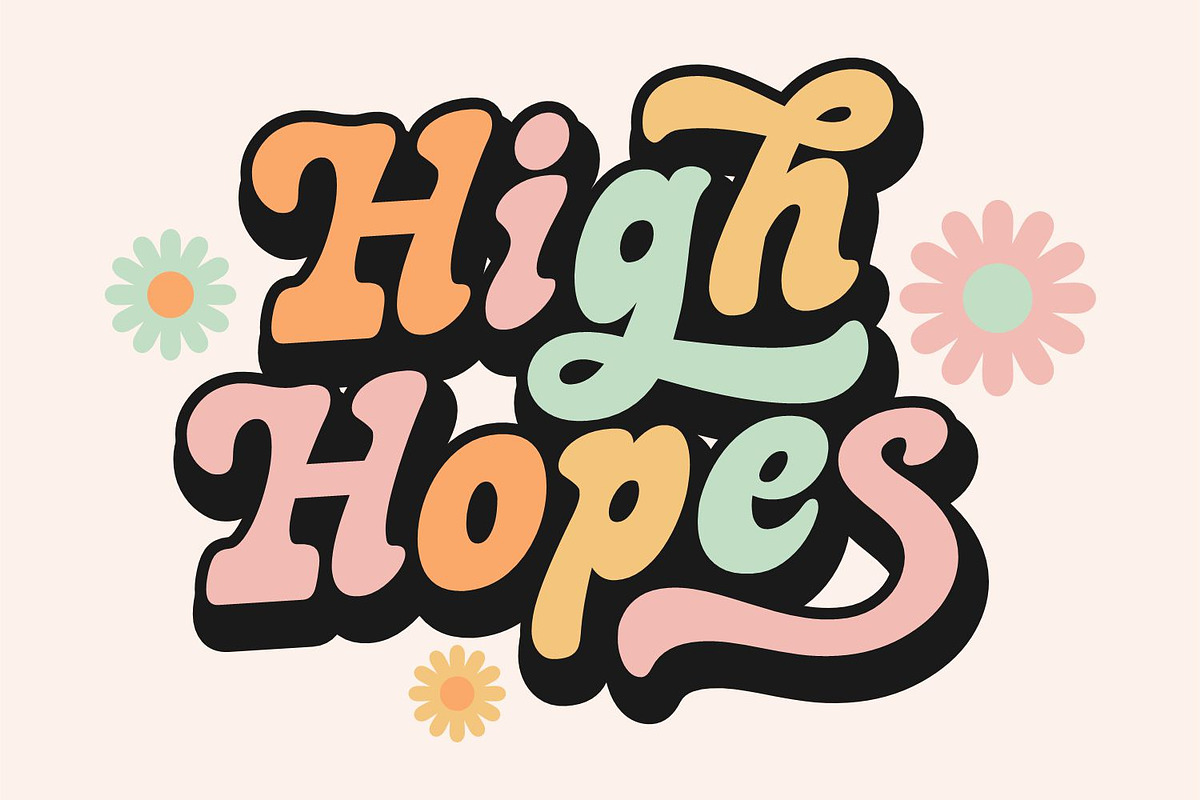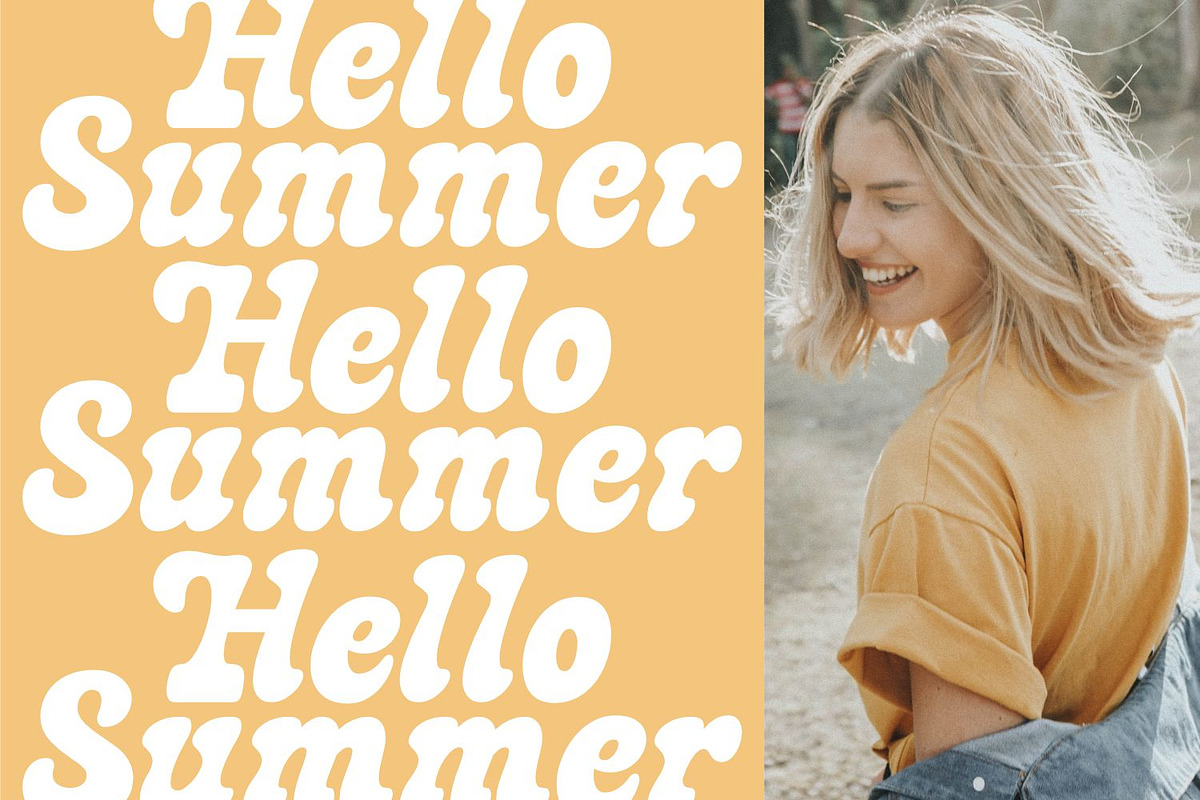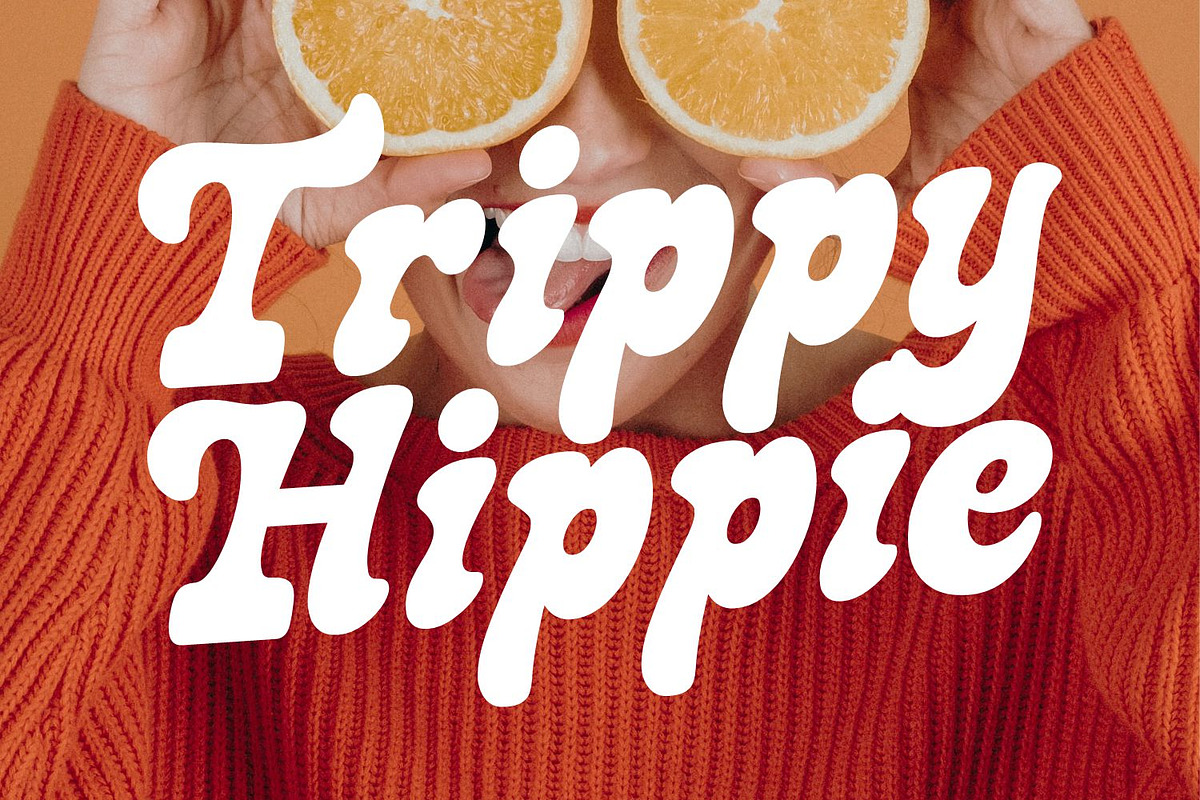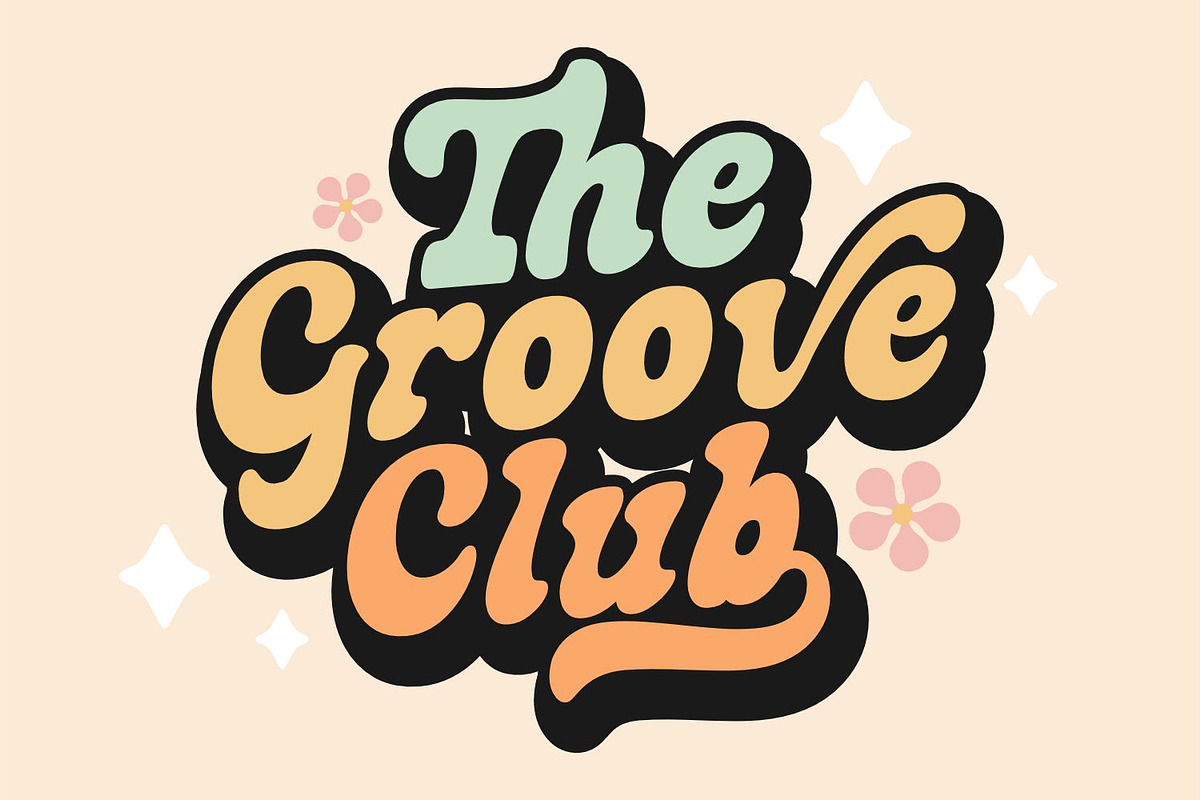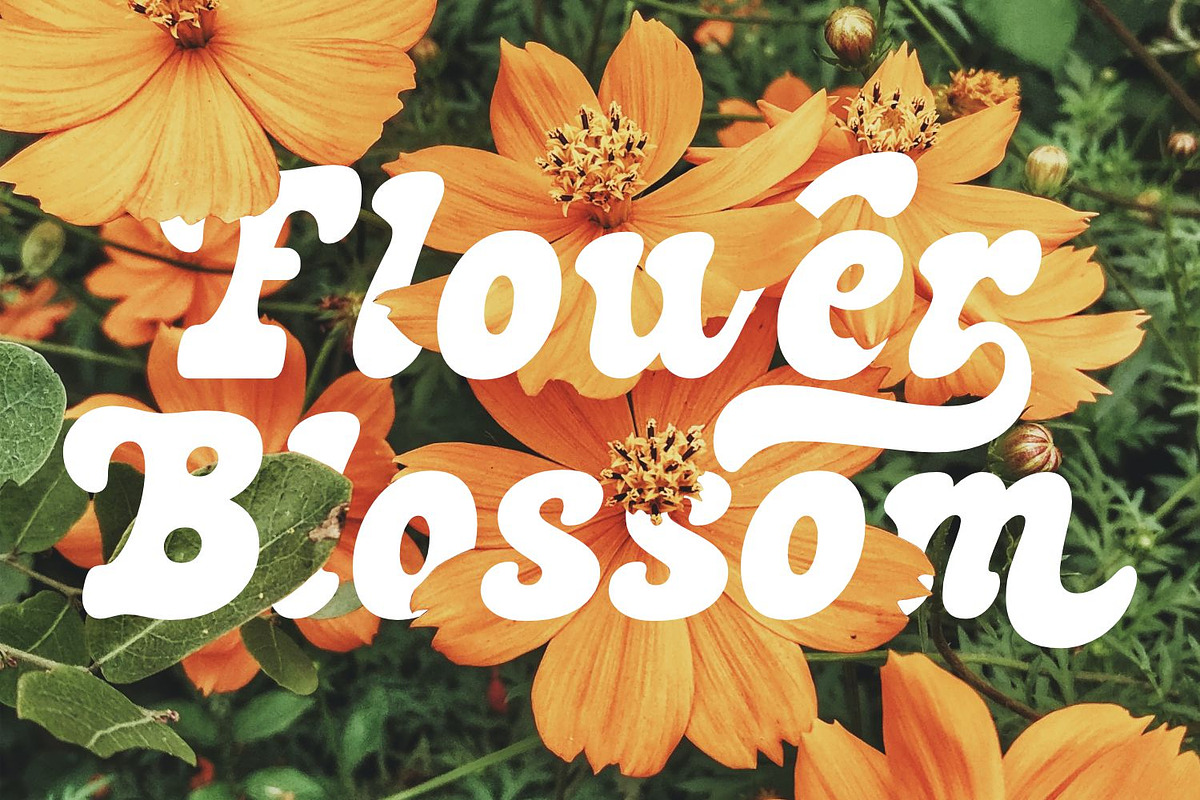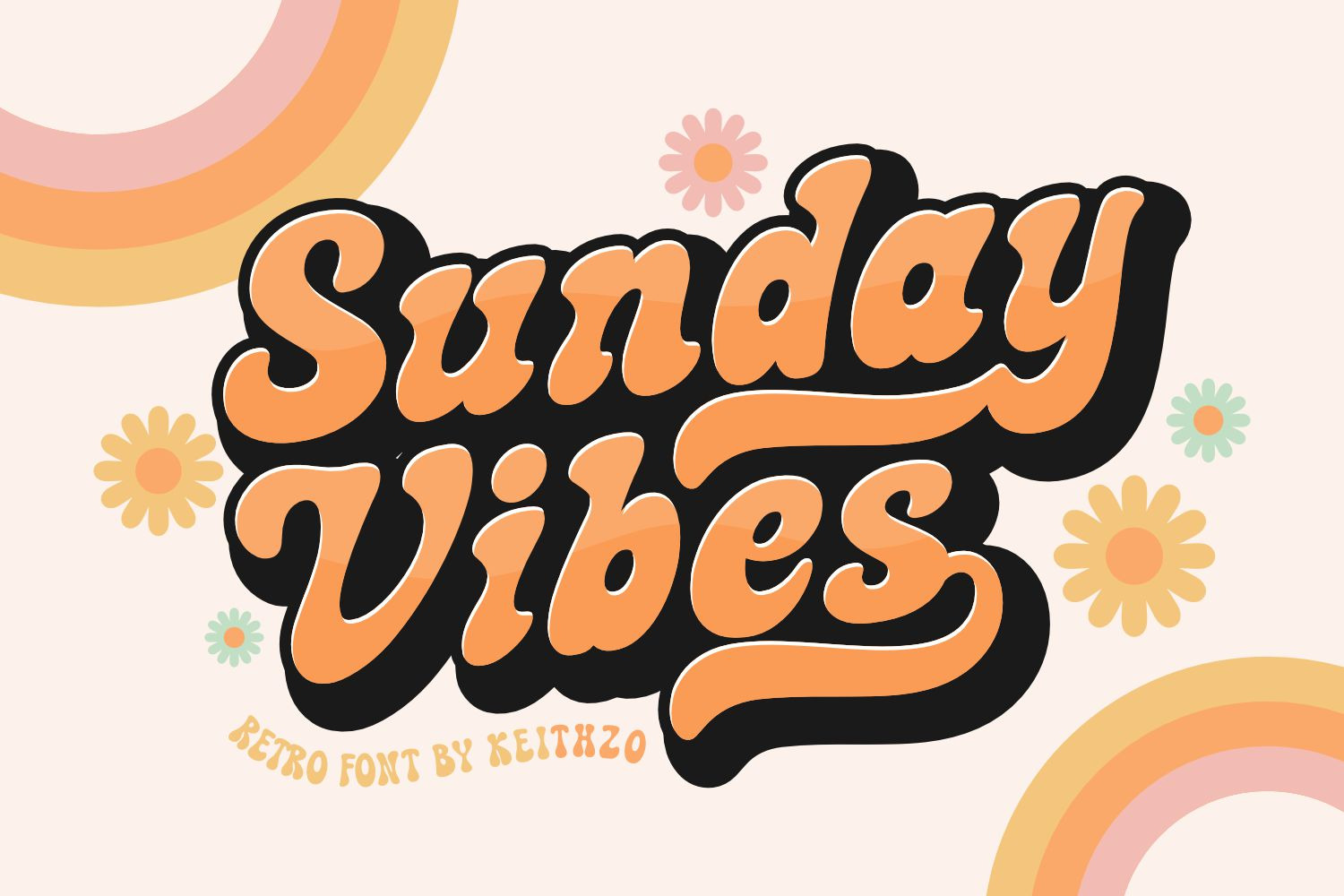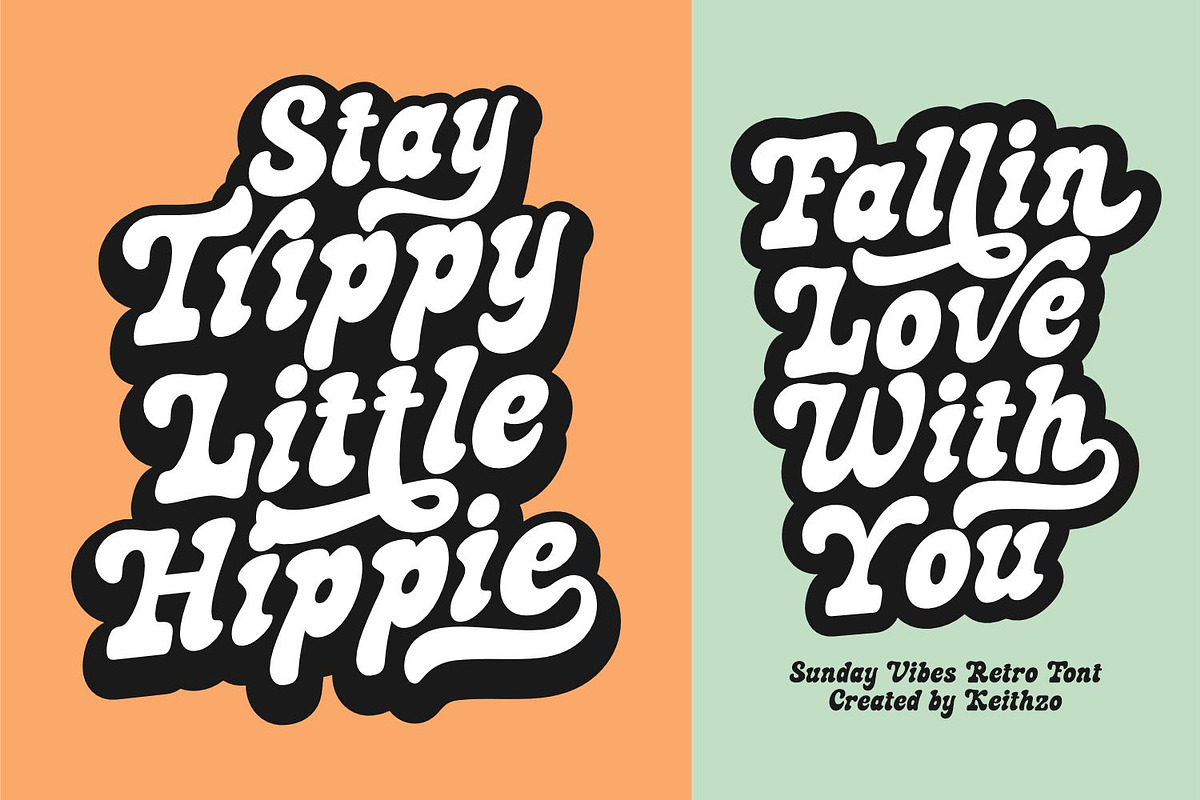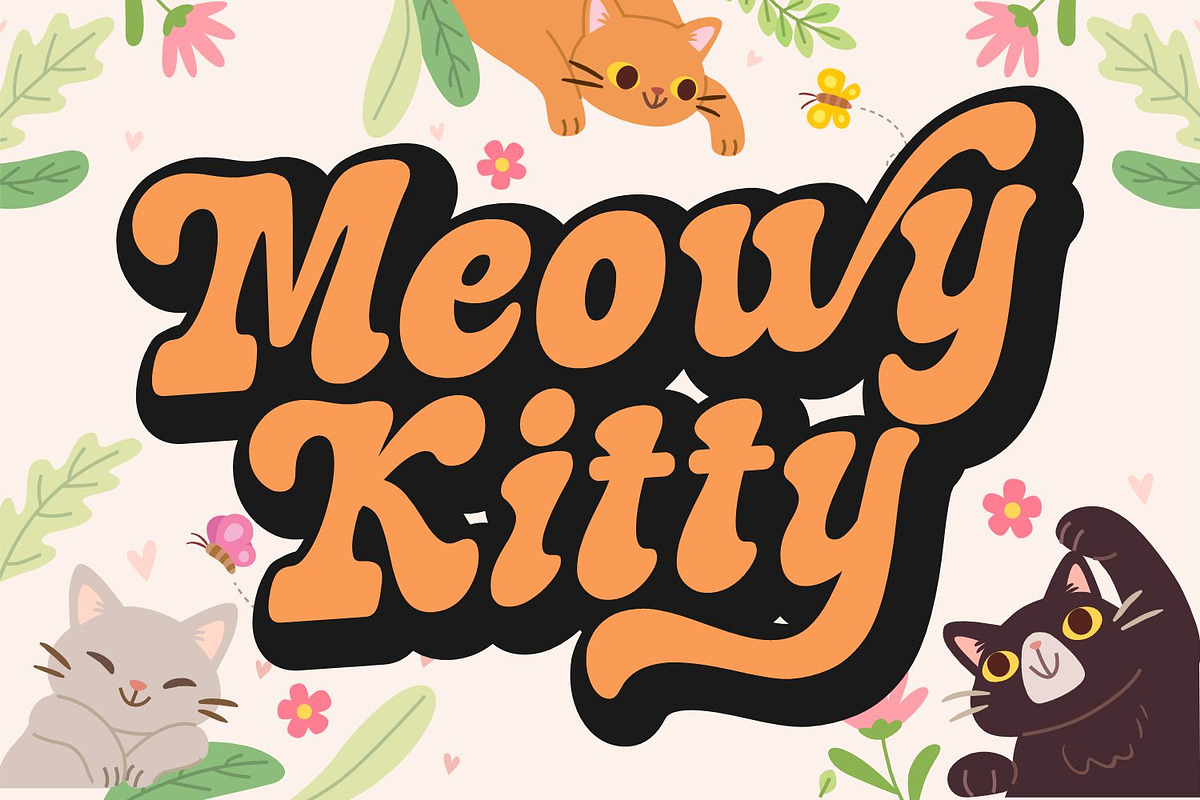
Sunday Vibes - Retro Font
Sunday Vibes is a groovy script display font that exudes a carefree and retro vibe. Its fluid, hand-drawn lines are inspired by the hippie era of the 1960s and 70s, making it the perfect choice for designs that want to evoke a sense of nostalgia or rebellion. The unique letterforms feature exaggerated loops, swirls, and curves, giving it a playful and whimsical appearance. This font is best used in larger sizes for headlines, titles, or any design project that wants to capture the essence of a carefree Sunday afternoon.